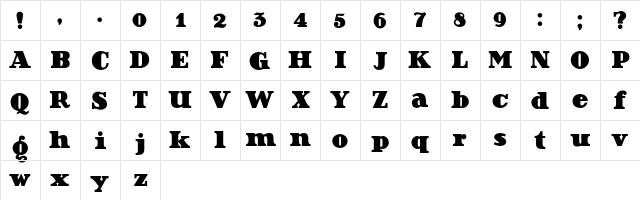
Decorattio Regular
Design Context for Decorattio Typeface
Decorattio takes a measured approach to typography — its balanced proportions and neutral character make it a reliable workhorse for both digital and print work.